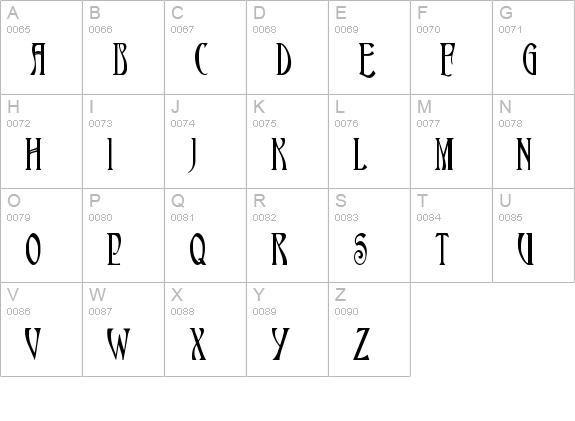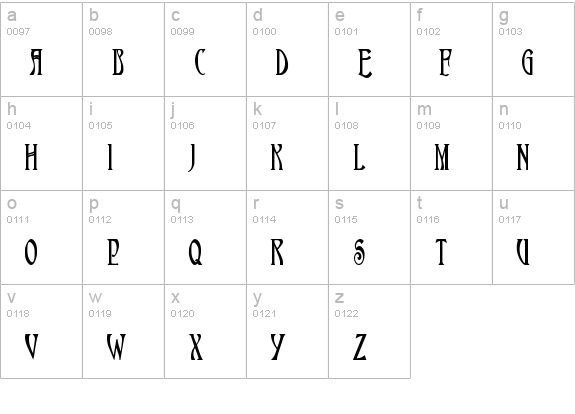
NouveauCondensed Bold is a strong, high-contrast variant in the NouveauCondensed typeface family \xE2\x80\x94 well suited to headlines, attention-grabbing titles, and strong calls-to-action.
NouveauCondensed Bold is a striking and versatile typeface that exudes boldness and modernity. With its condensed design and strong, elegant letterforms, this font is perfect for making a statement in headlines, posters, logos, and other design projects that require a touch of sophistication. The thick strokes and clean lines of NouveauCondensed Bold command attention and lend a sense of authority to any text. Best of all, NouveauCondensed Bold is completely free to download at FontsMarket.com. This means you can add this stylish font to your collection without having to spend a penny. Whether you're a graphic designer, marketer, or just someone who appreciates good typography, NouveauCondensed Bold is sure to become a go-to choice for your creative projects. Download it today and elevate your designs with this sleek and impactful typeface.